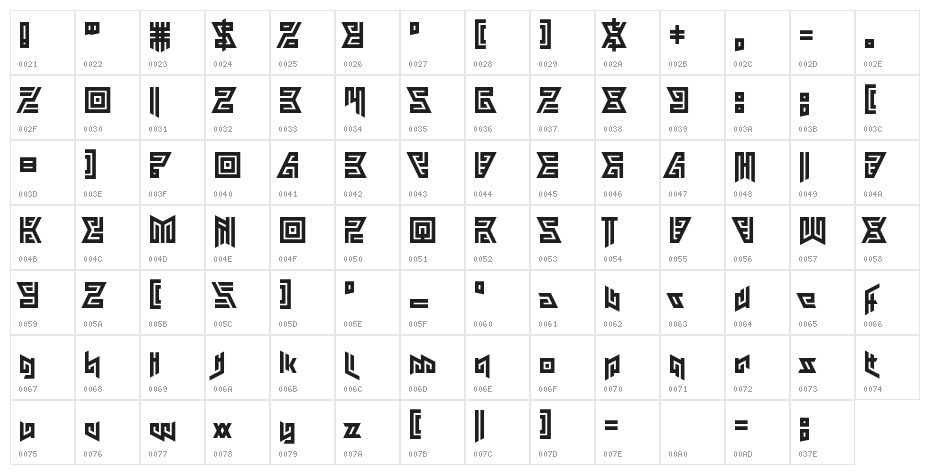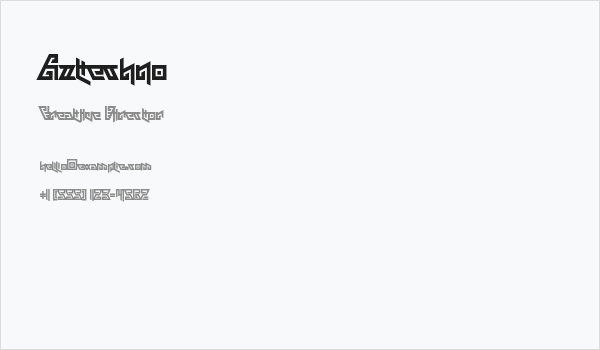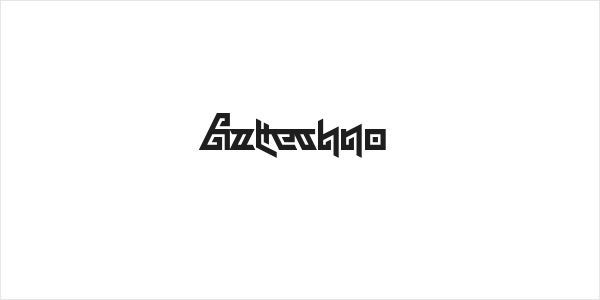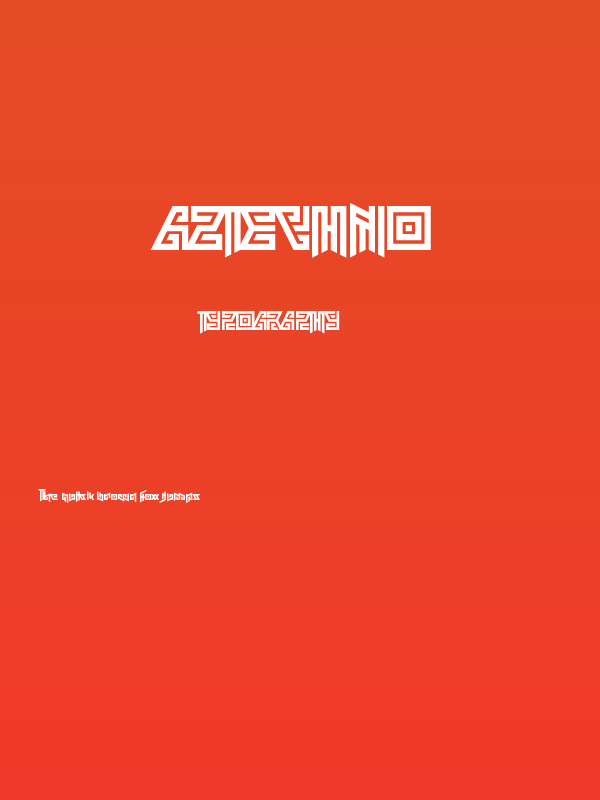
Aztechno Font
Aztechno Description
This font features a highly geometric and angular design, reminiscent of ancient symbols or futuristic scripts. Each character is constructed with bold, straight lines and sharp angles, creating a maze-like appearance. The uppercase and lowercase letters maintain a consistent style, with intricate patterns that suggest a sense of mystery and complexity. Numbers and special characters follow the same design principles, ensuring uniformity across the entire set. The font's unique aesthetic makes it stand out, ideal for projects that require a strong visual impact.
| Overall Style | Futuristic, Symbolic |
| Use Case | Logos, Posters, Headlines |
| Proposed Projects | Perfect for sci-fi themed designs, video game graphics, posters, and branding that requires a futuristic or ancient symbolic feel. |